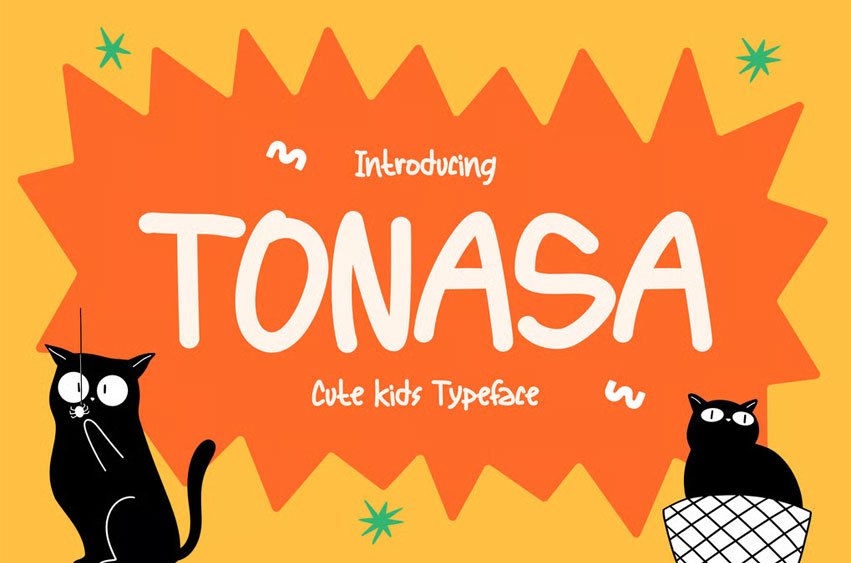
Tonasa Font is a playful hand-drawn display type designed for kid-friendly branding and cheerful visual storytelling, featuring rounded strokes, low contrast, and a lively, bouncy baseline that feels warm and expressive. Its overall vibe is bold, playful, and friendly, making it ideal for creative markets that value emotional connection and clarity.
Tonasa is crafted for designers who want instant warmth and attention without visual noise. Whether you are designing a kids book cover, birthday poster, classroom material, game UI title, or Instagram graphic, this typeface creates an inviting tone that feels human and approachable.
Its playful structure supports emotional goals such as joy, celebration, positivity, and friendliness, helping messages feel more engaging and memorable. Tonasa turns simple words into expressive visuals that connect quickly with young audiences and family-oriented brands.
Key Features :
- Playful Display Character Bold, friendly shapes create strong visual impact while staying approachable and easy to read.
- Rounded & Expressive Letterforms Soft terminals and organic curves give each letter a hand-crafted feel with natural flow.
- High Readability at Display Sizes Designed for headlines, titles, posters, and short messages that need clarity and charm.
- Versatile Creative Use Ideal for kids books, educational projects, event flyers, packaging, stickers, and social media designs.
- Design-Friendly Structure Balanced proportions make layout work faster and more intuitive for designers and marketers.